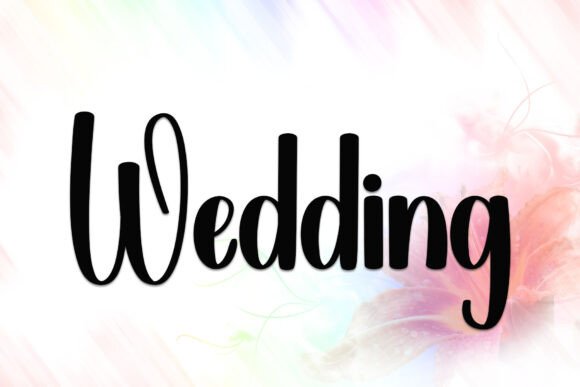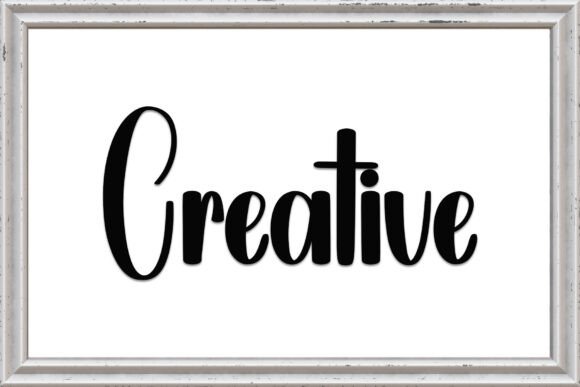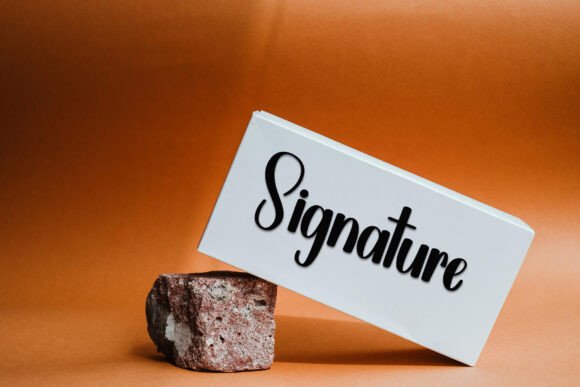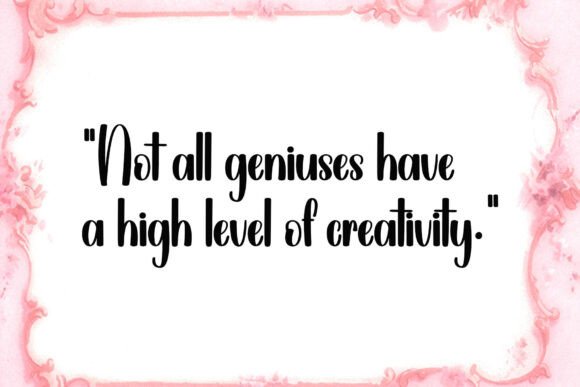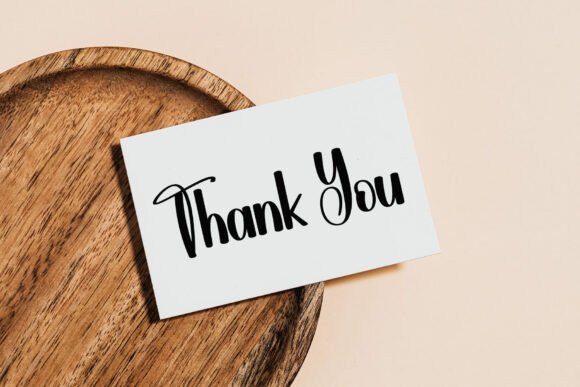
The Joy of Butterfly Coasters Font: A Designer’s Delight
I still remember the time I was working on a project for a client’s birthday party invitations. I had all the design elements ready, but something was missing – the perfect font. I scrolled through my font library, but nothing seemed to match the cheerful and playful vibe I was going for. That’s when I stumbled upon Butterfly Coasters Font, and it instantly became the star of the show! ✨
• ✨ Unique and decorative elements that add a touch of charm to any design
• ✅ Perfect for creating greeting cards, gift labels, and holiday-themed projects
• 🎉 Brings a cheerful and nostalgic atmosphere to your words
• 💻 Highly versatile and can be used for both digital and print projects
While Butterfly Coasters Font is a delightful addition to any design project, there are a few things to keep in mind: 🤔
• ⚠️ Some characters may not work well in very small font sizes, so it’s best to use it at larger sizes (20px and above)
• ⚠️ Limited availability of Cyrillic and non-English characters
The Story Behind Butterfly Coasters Font
Butterfly Coasters Font was designed by a talented type designer who’s passionate about creating unique and decorative fonts. Inspired by the whimsical world of butterflies and vintage crafts, this font is meant to evoke a sense of joy and playfulness. With its intricate details and curly flourishes, Butterfly Coasters Font is the perfect addition to any design project that needs a touch of charm.
Q: What type of projects is Butterfly Coasters Font best suited for?
A: Butterfly Coasters Font is perfect for creating greeting cards, gift labels, holiday-themed projects, and other designs that require a touch of whimsy and charm.
Q: Is Butterfly Coasters Font available in different languages?
A: Butterfly Coasters Font may have limited language support, but it’s best to check with the font designer or foundry for specific language availability.